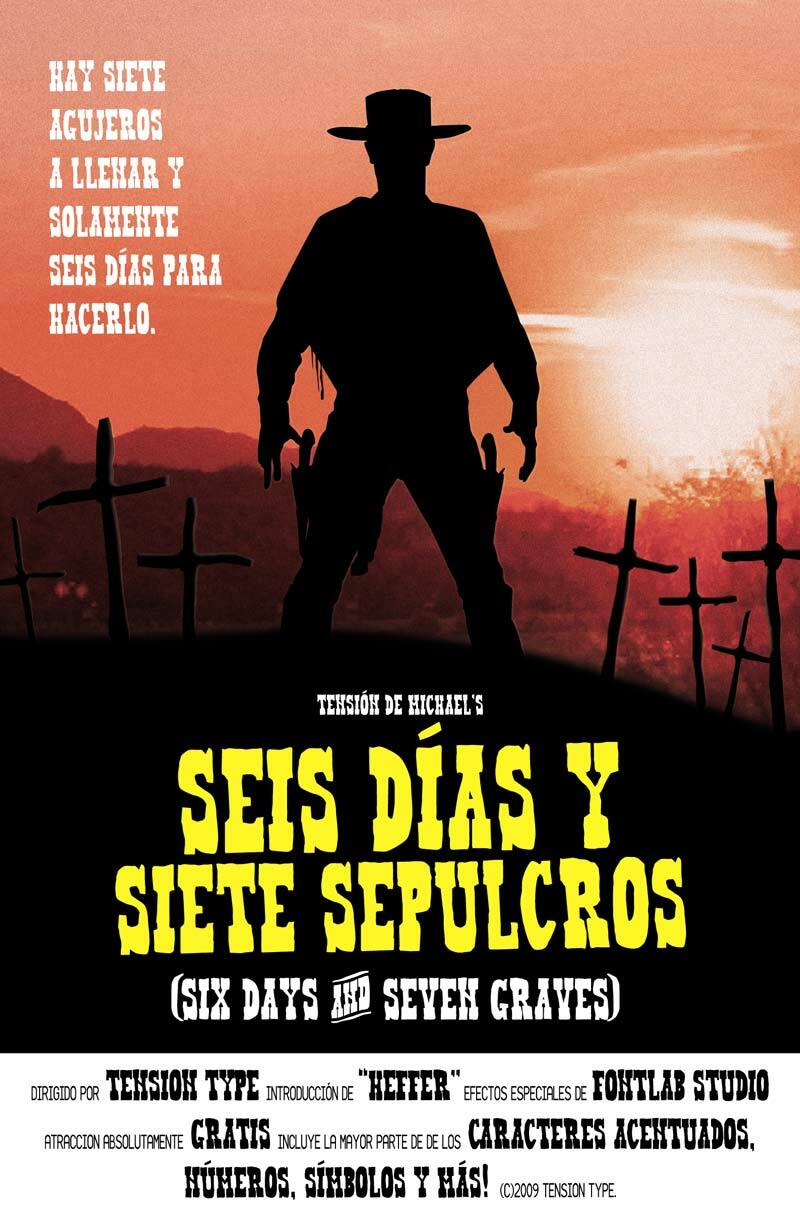
Heffer by Michael Tension is a free distorted Western display font built from tall, blocky slab-serif letters. Its uneven edges and pinched joins recall roughly cut wood type, with small shifts in width and irregular letter heights keeping the forms deliberately restless. The silhouette is tough and theatrical.
Frontier stories, outlaw imagery, and rustic Americana give this lettering its clearest setting, making it useful for Western posters, game graphics, and themed event material. It is also a convincing choice for saloon branding and rustic novelty packaging, where the warped, oversized slabs can function like hand-painted sign lettering rather than polished commercial type.